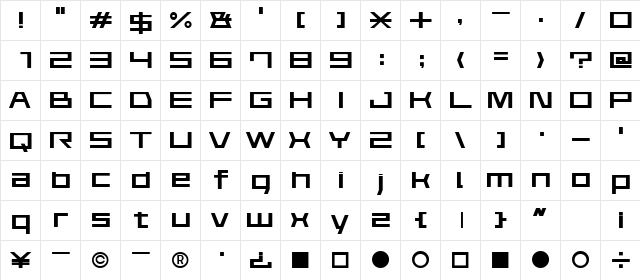
AstraAfsb07MediumO Regular Font Preview
AstraAfsb07MediumO Regular
Design Context for AstraAfsb07MediumO Typeface
AstraAfsb07MediumO takes a measured approach to typography — its balanced proportions and neutral character make it a reliable workhorse for both digital and print work.